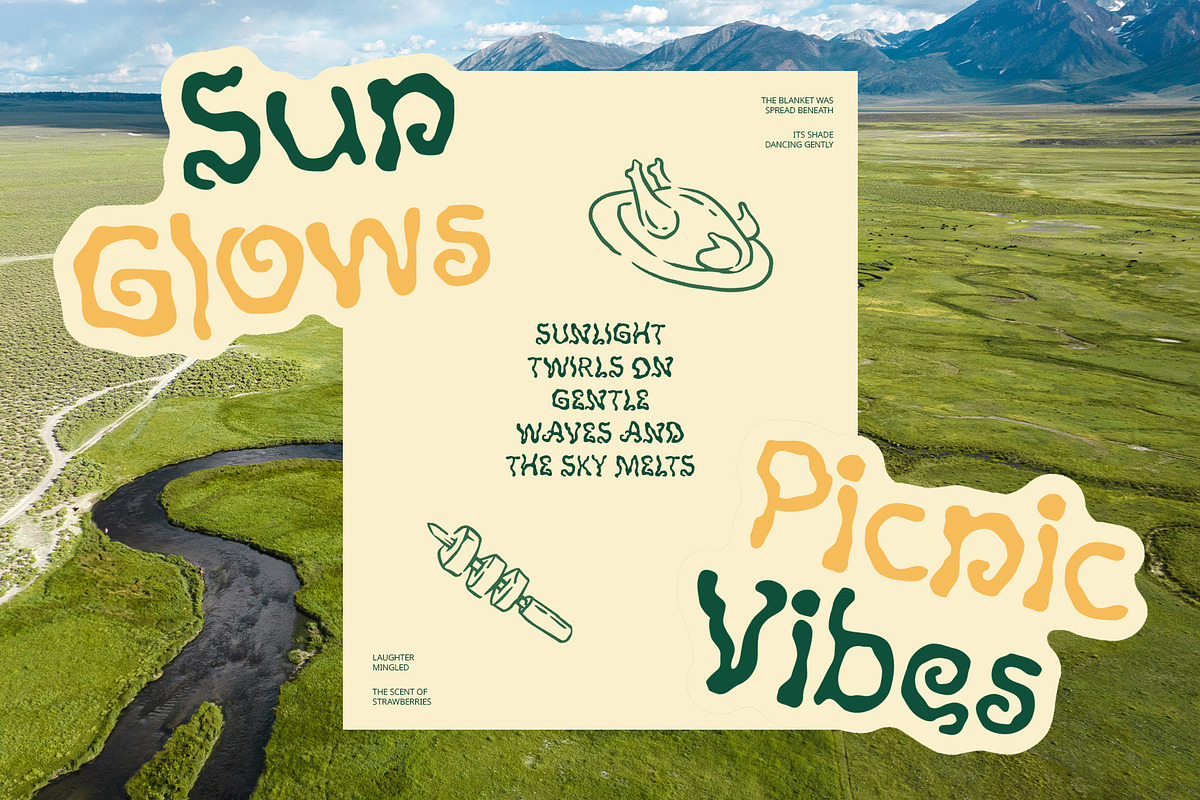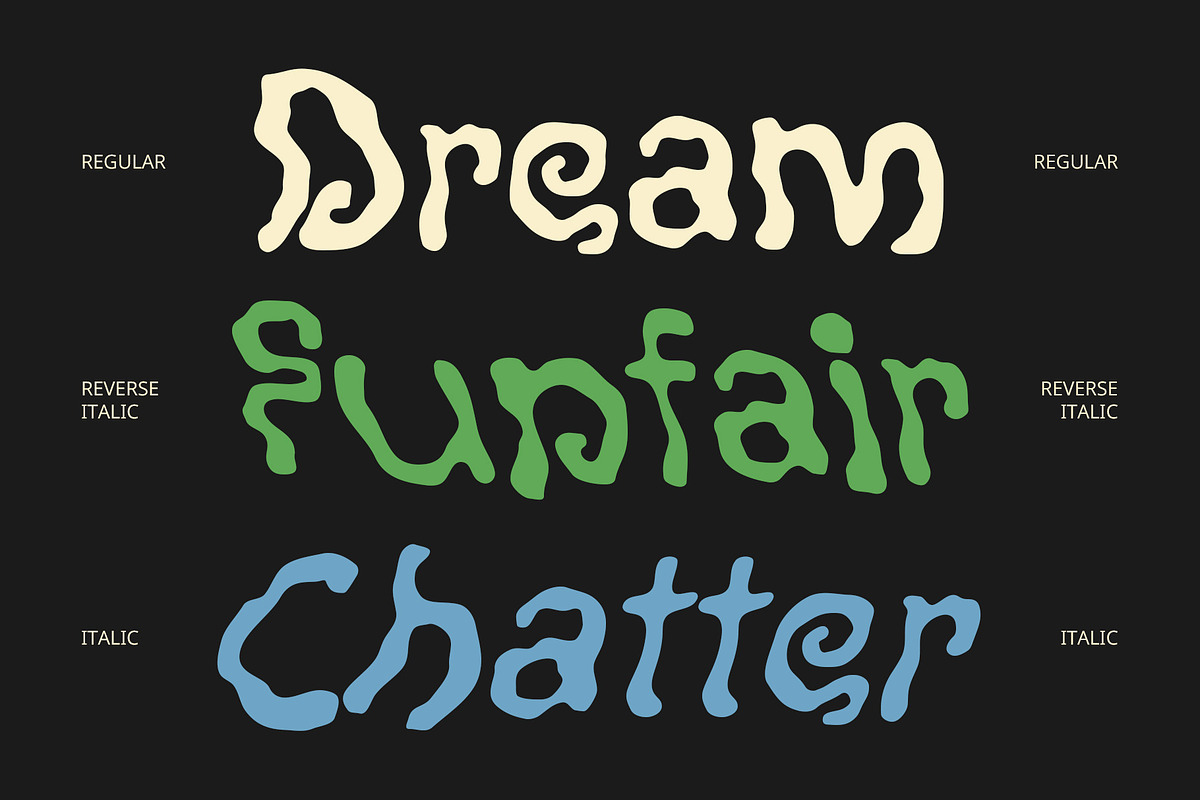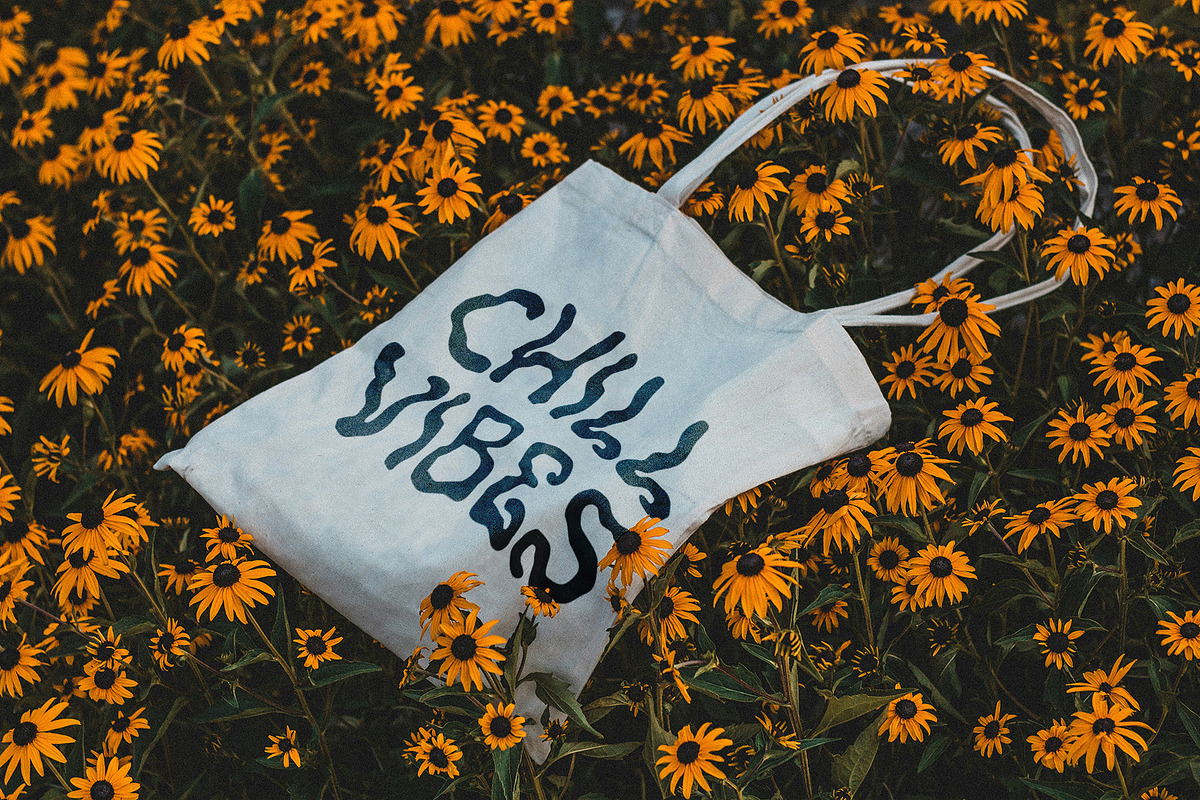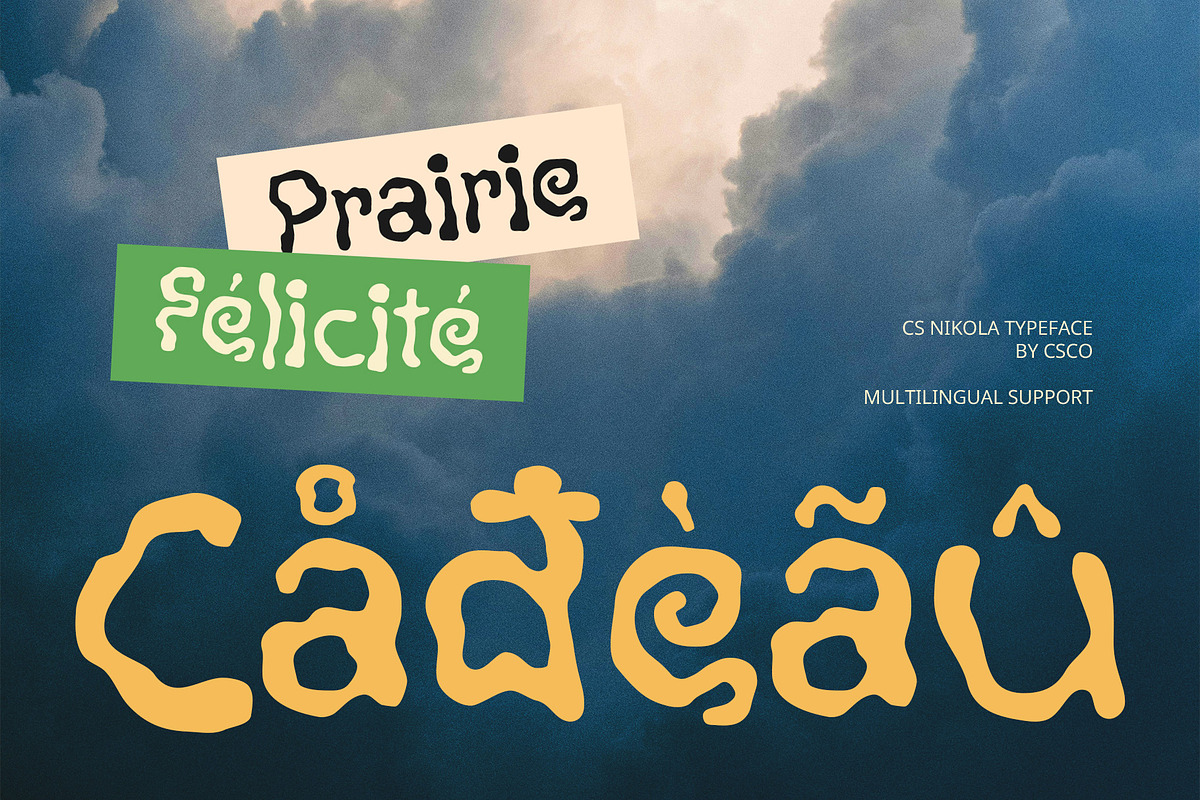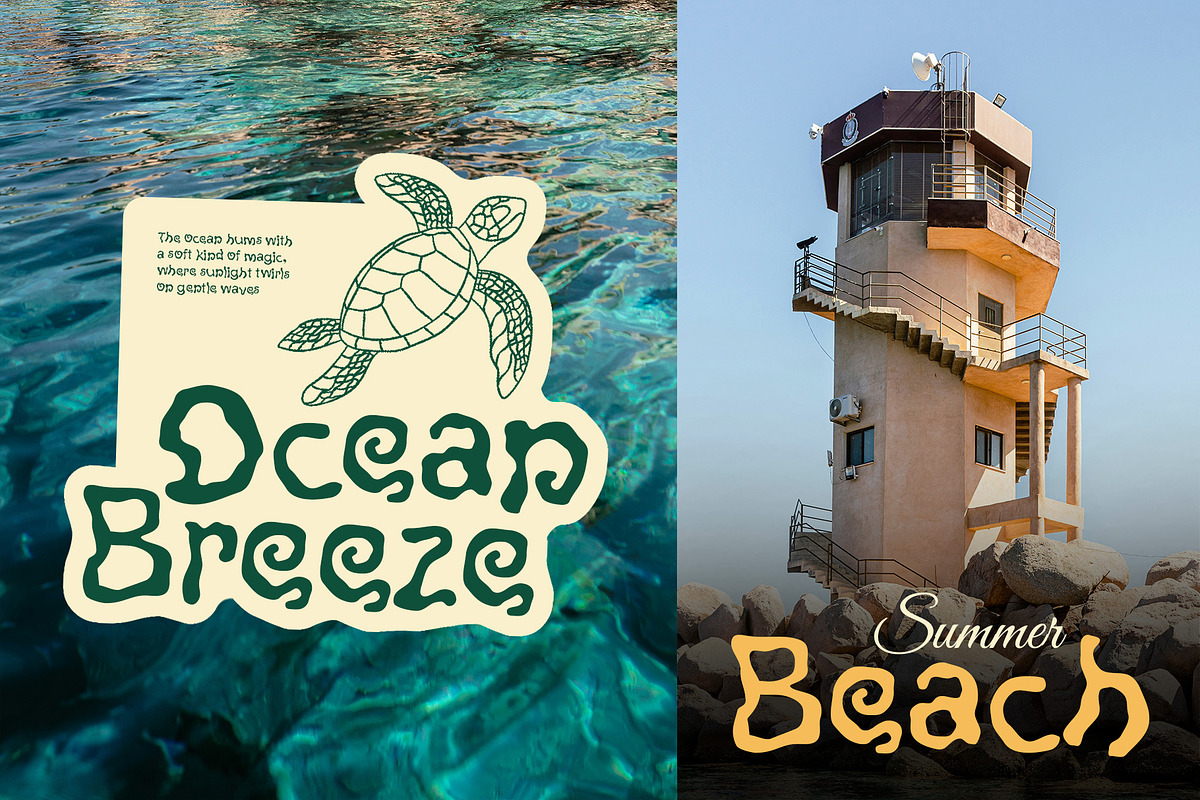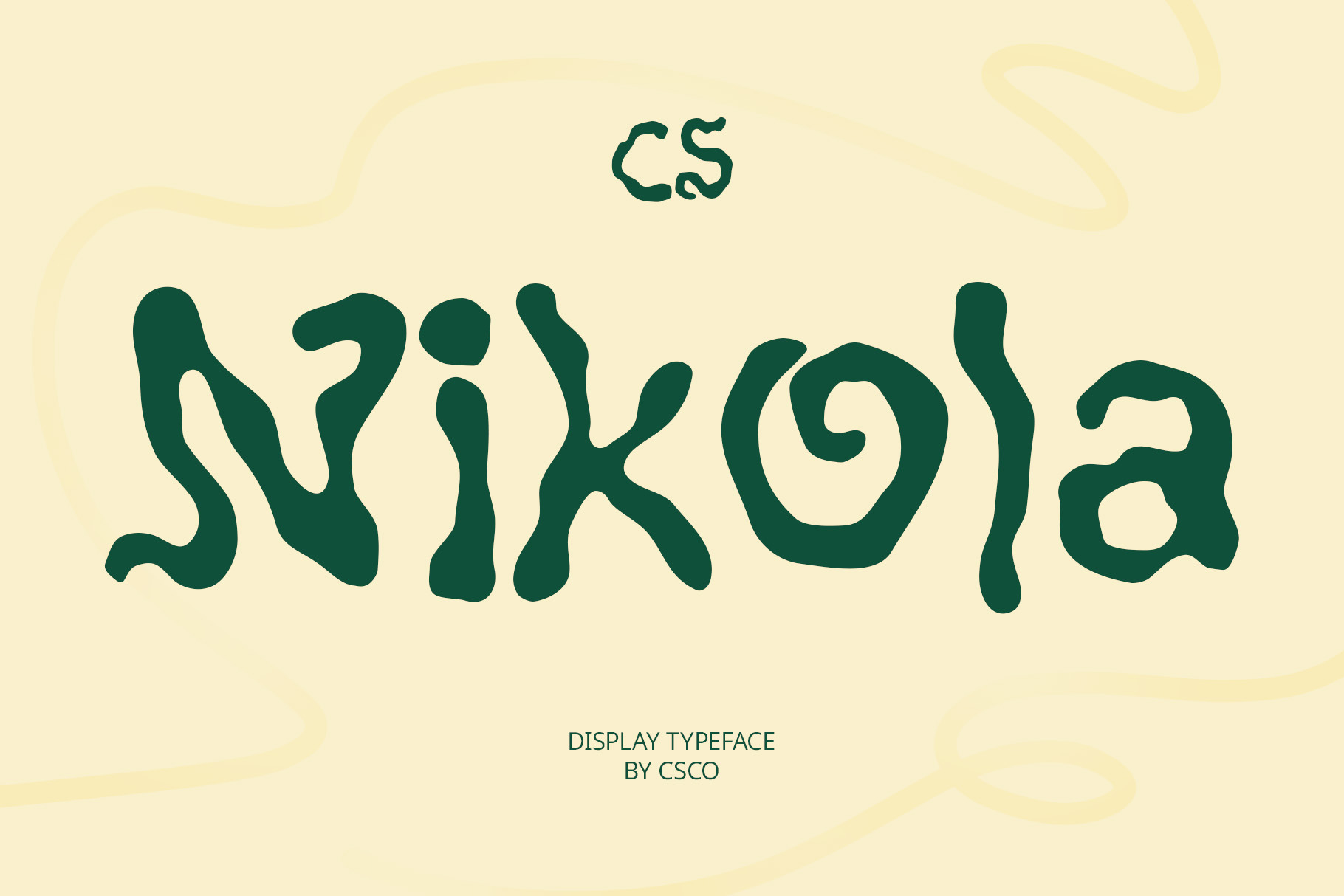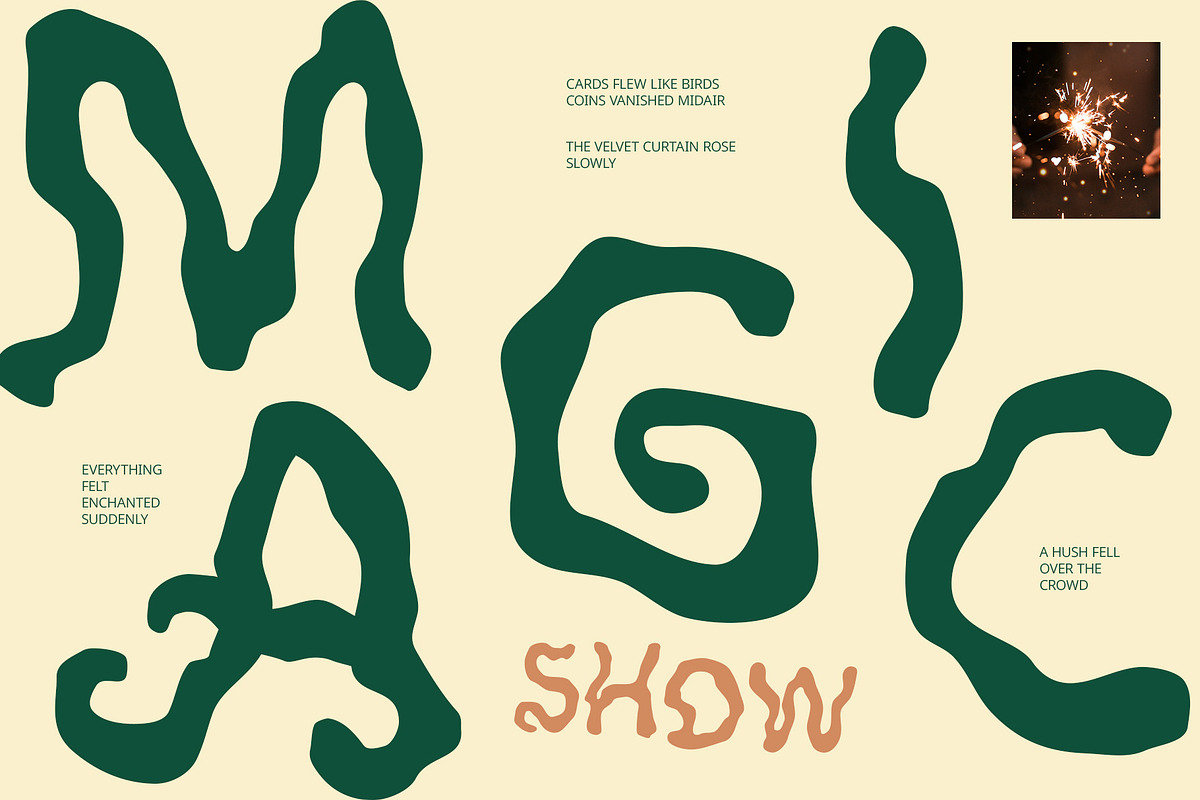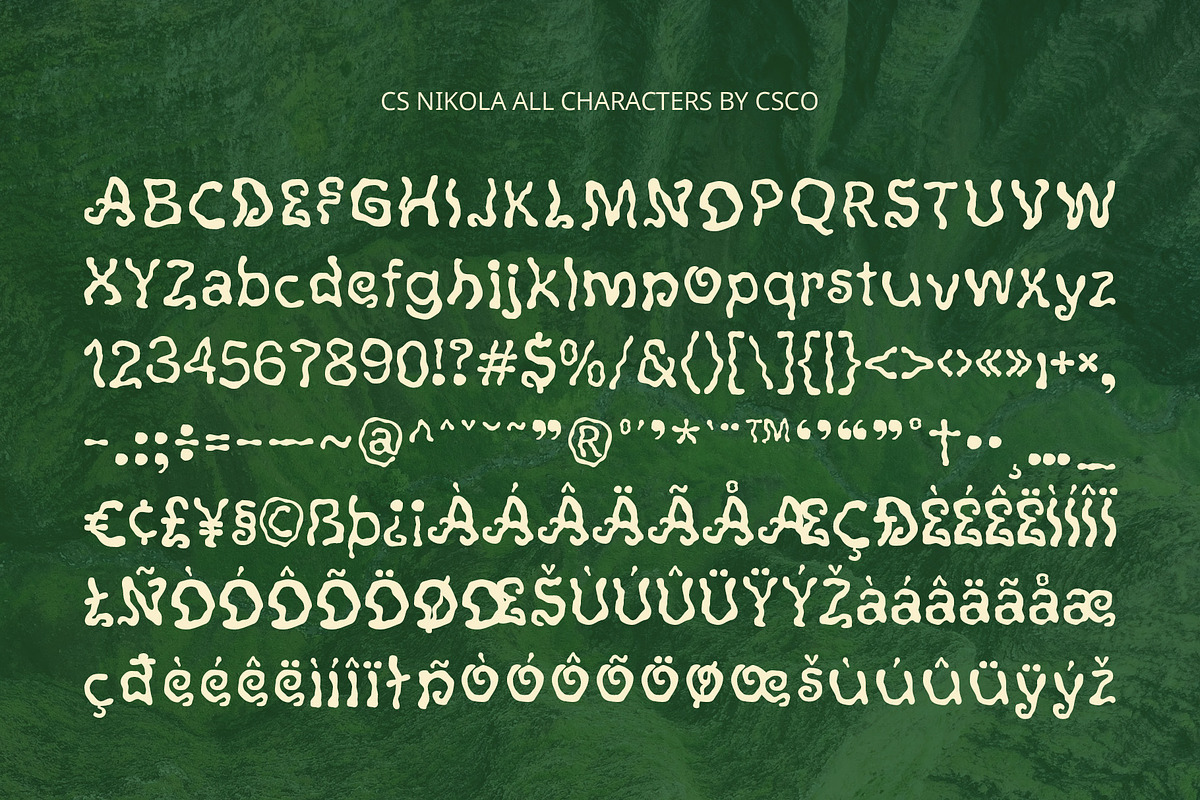
CS Nikola – Etchy Font
CS Nikola – Etchy Font with Bold Artistic Expression
Etchy and Irregular for Handcrafted Charm CS Nikola is a display font that embraces an etchy, rough, and hand-drawn style. Its jagged, irregular lines evoke a raw, spontaneous energy that feels as if it was sketched directly onto the page. The font captures the essence of creative imperfection, adding authenticity and edge to every letter.
Funky and Full of Personality With its funky, expressive character, CS Nikola adds a punch of individuality to any design. The freeform shapes and hand-rendered strokes are perfect for creating visual rhythm and movement, making the font ideal for projects that want to feel dynamic, personal, and rebellious.
Perfect for Artistic and Youthful Visuals Whether you’re designing music posters, DIY zines, album covers, or youth-centric illustrations, CS Nikola brings an unconventional flair that grabs attention. It speaks directly to audiences looking for designs that are raw, emotional, and full of artistic intent.
Unpolished, Experimental, and Inspiring CS Nikola thrives in spaces where creative freedom is key. From experimental art projects to informal branding and campaigns, it delivers a bold, handcrafted look that challenges the norm and encourages expression. Its unrefined edge is not a flaw—it’s the font’s defining feature, making it a powerful tool for designs that break the mold.
- CS Nikola Regular
- CS Nikola Italic
- CS Nikola Reverse Italic